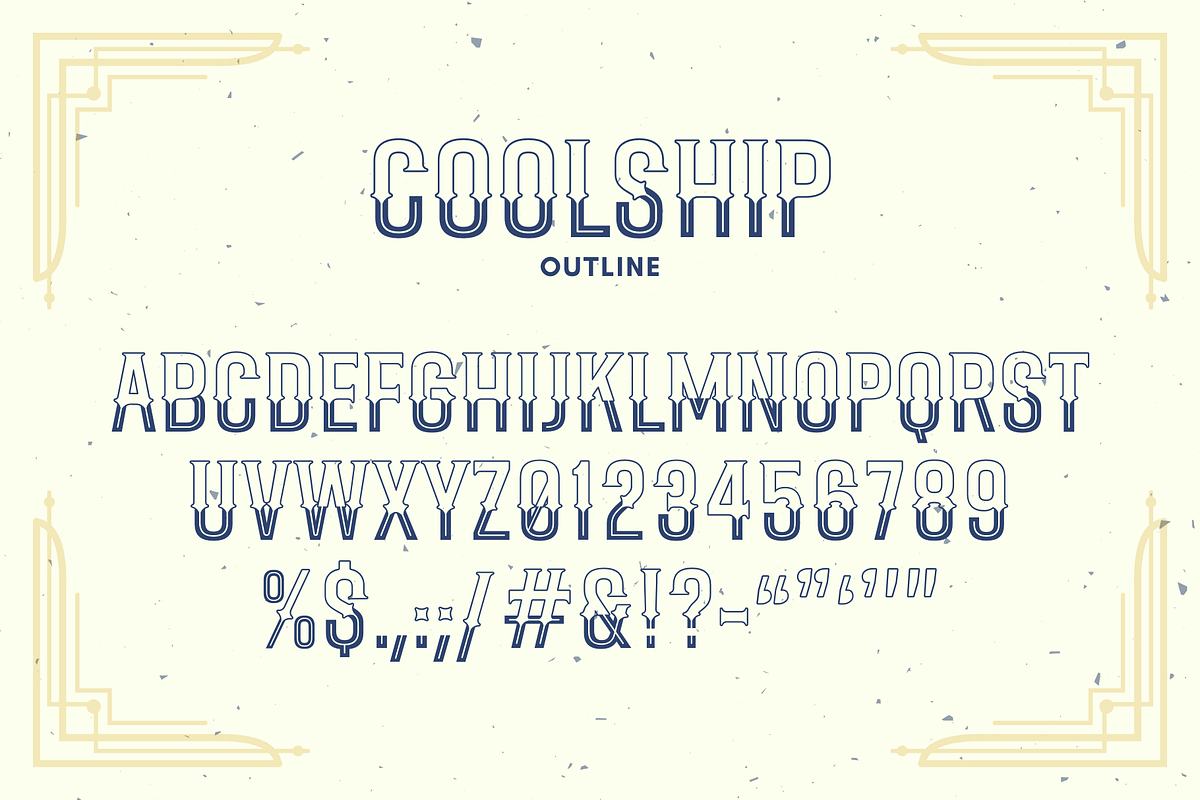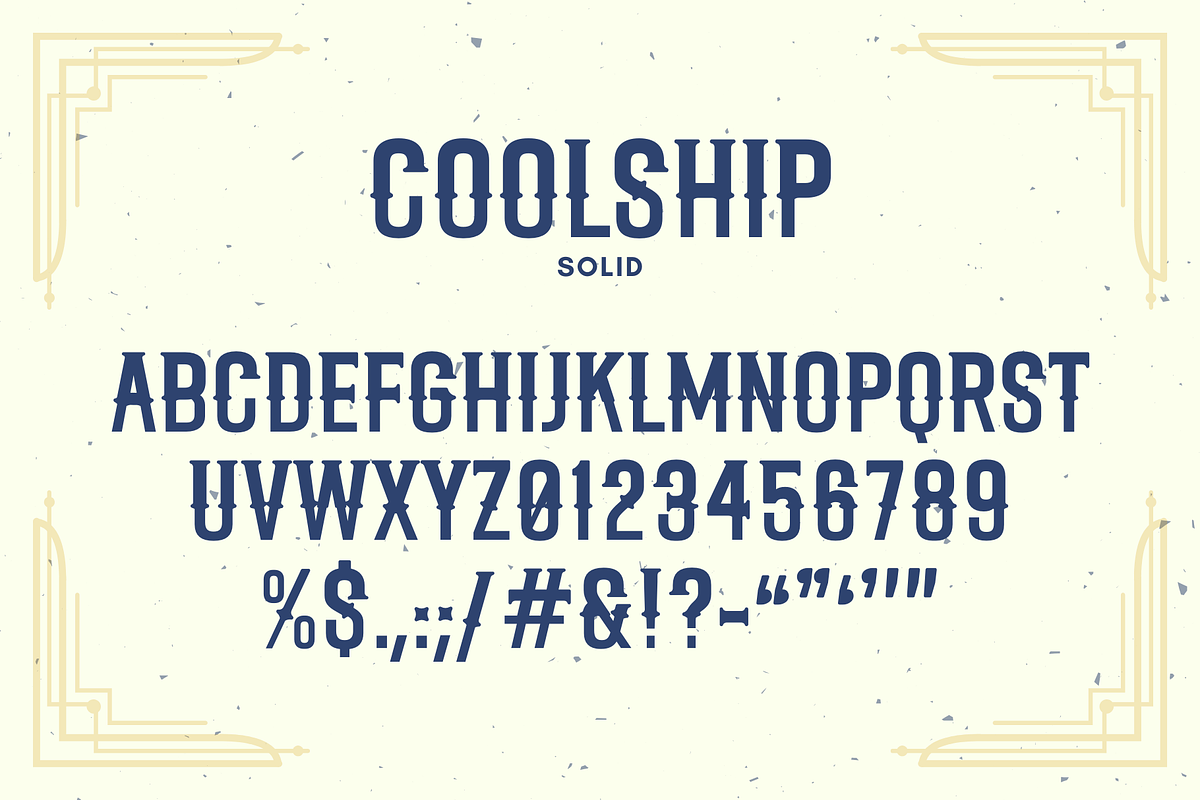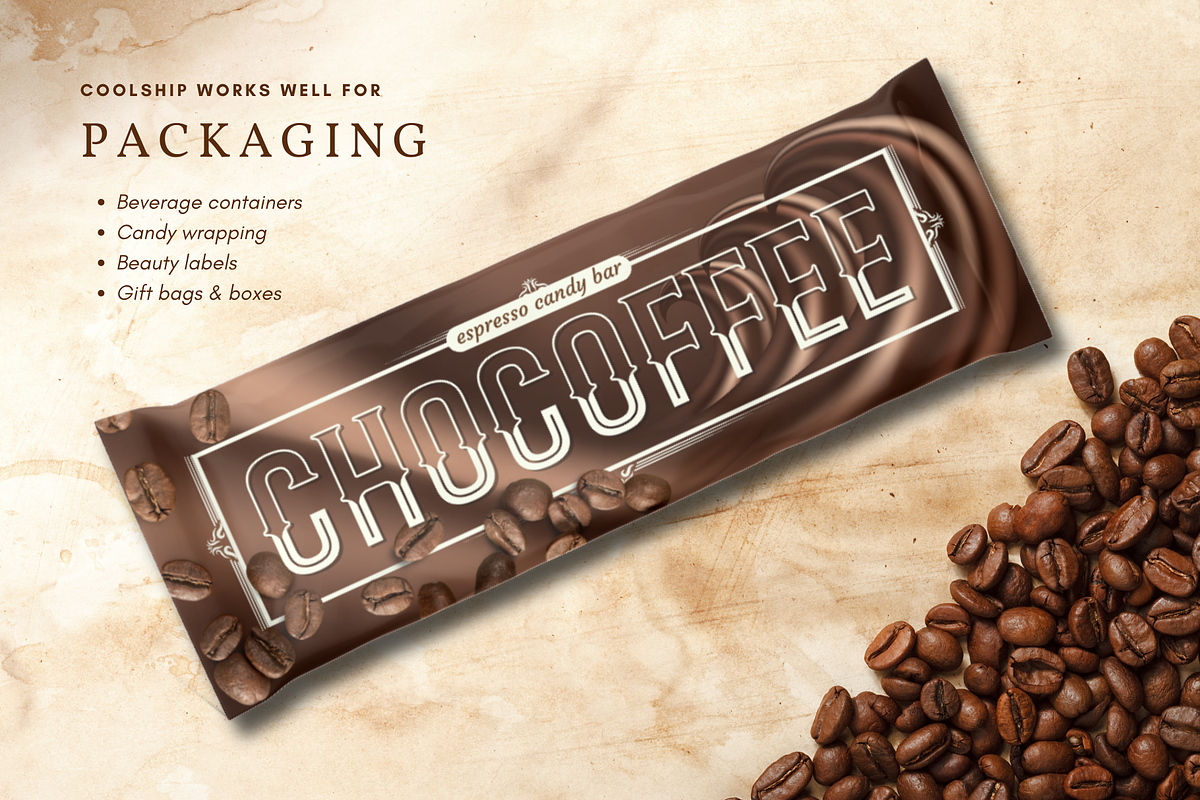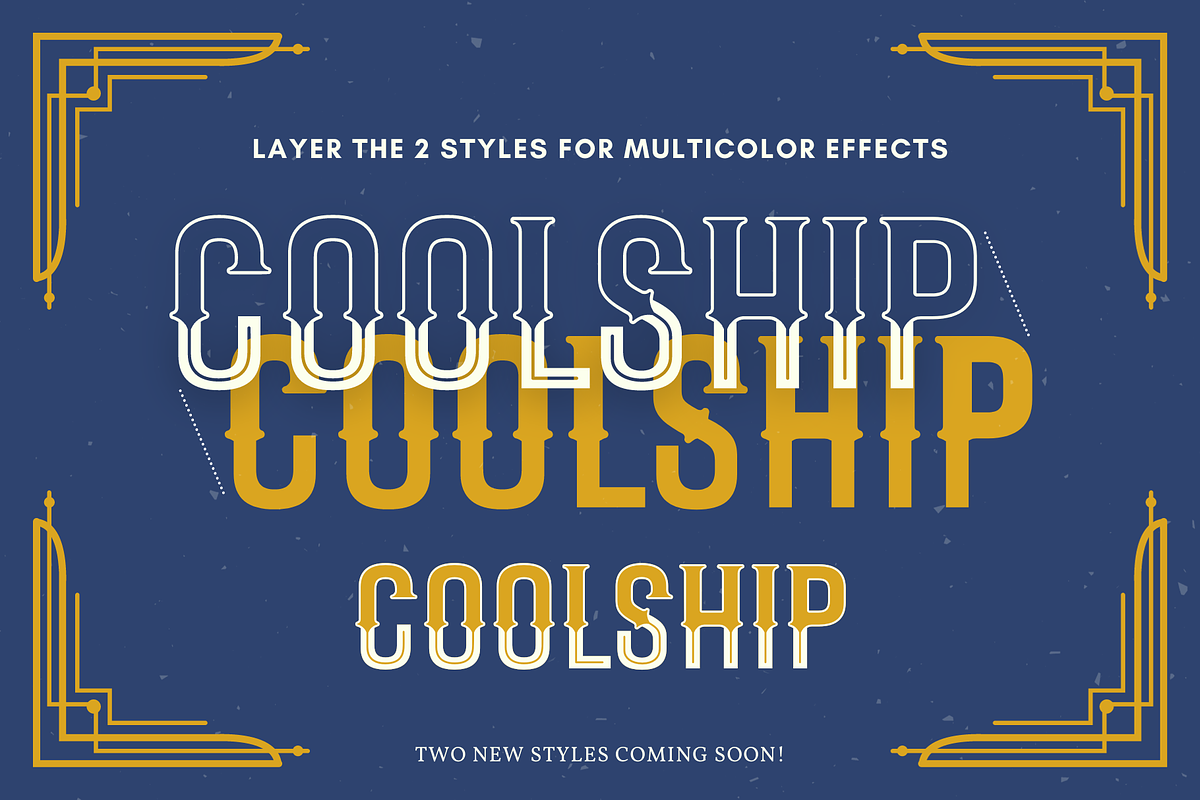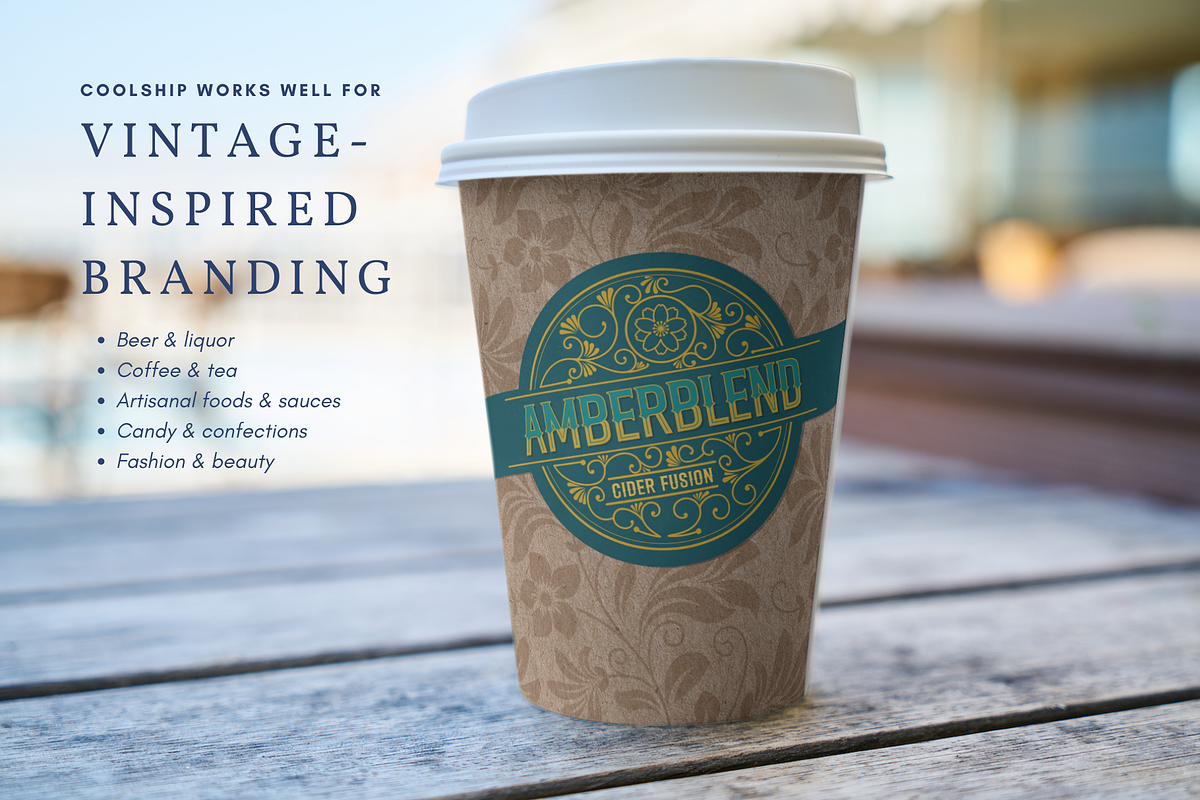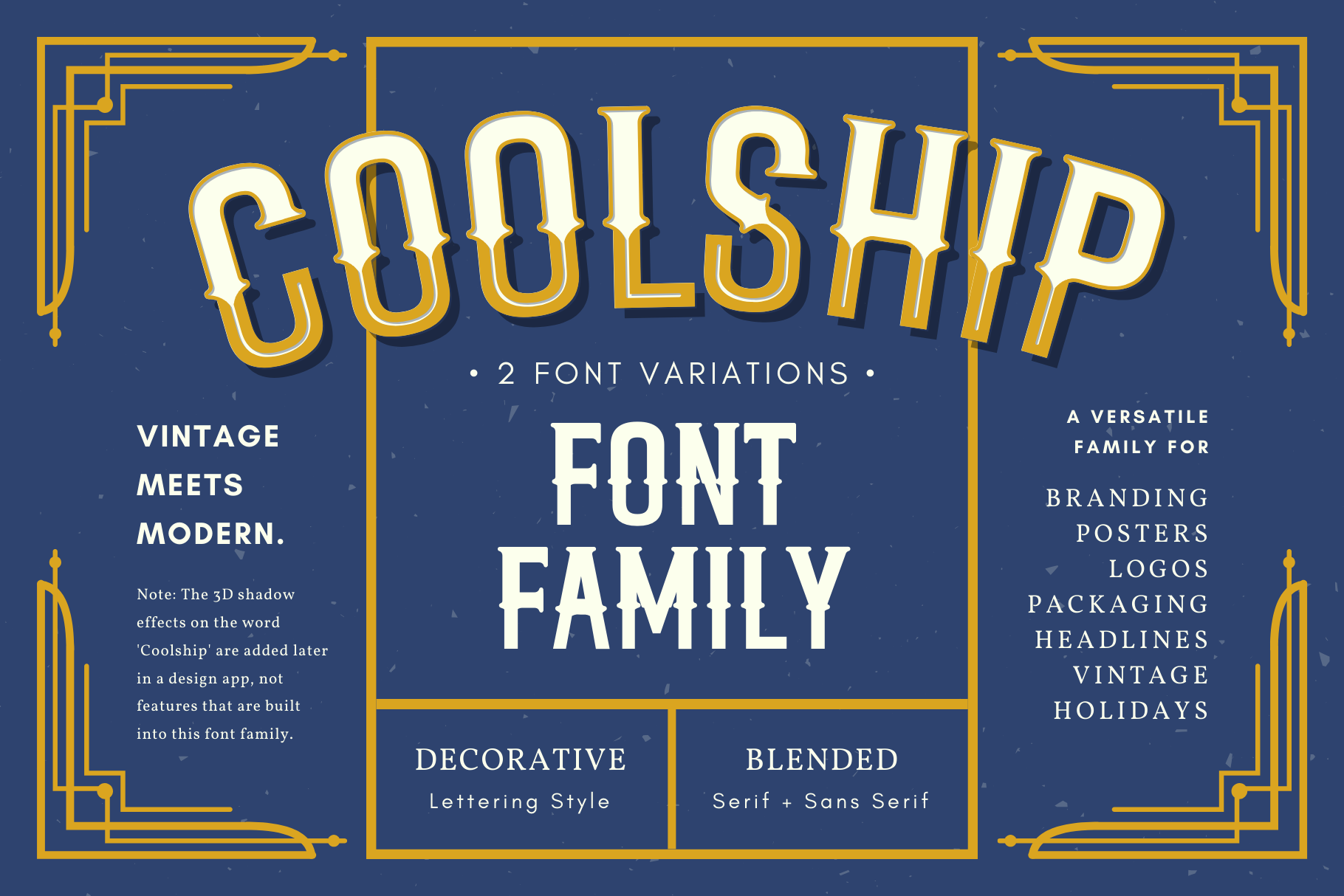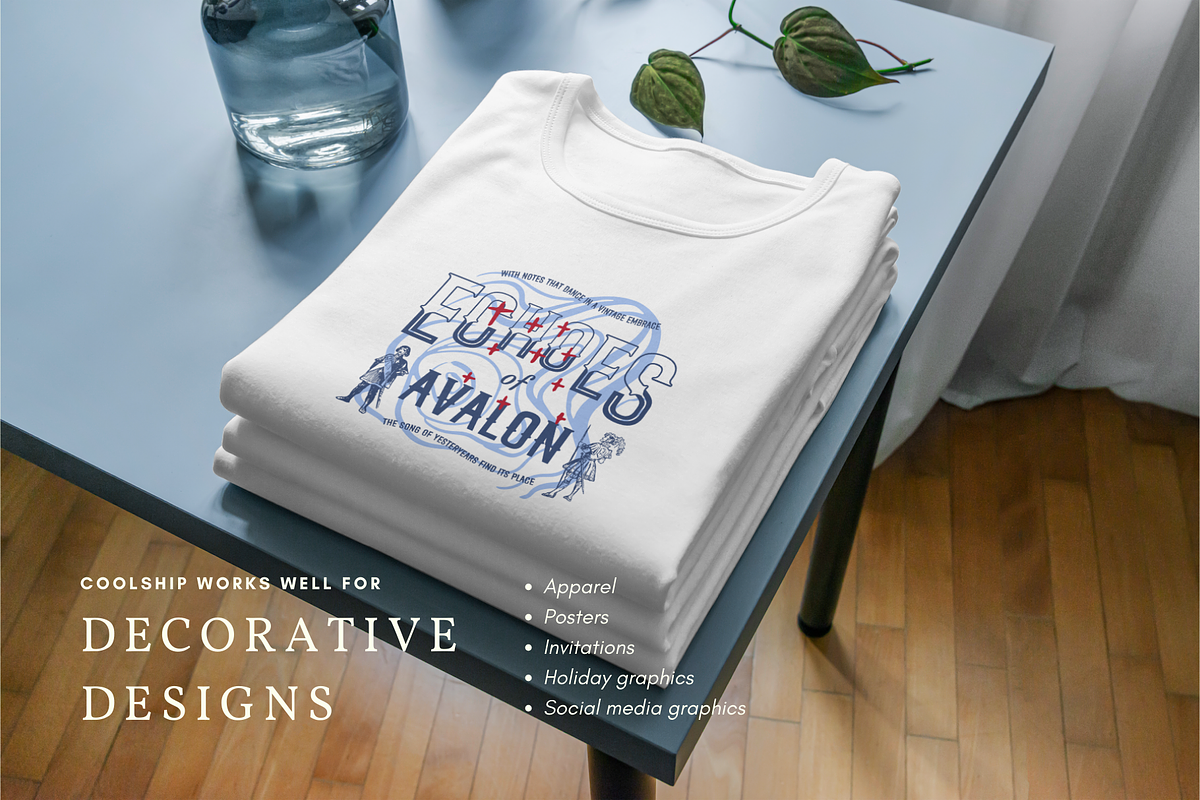
Coolship Font Family
Introducing Coolship, a distinctive decorative display font that seamlessly combines the elegance of traditional decorative lettering with the crisp simplicity of a clean sans serif. From brewery brands and coffee-related aesthetics to holiday graphics, packaging designs, and vintage-inspired posters, Coolship effortlessly elevates your creative projects.
Born from a craft brewery branding project, the font includes both an outline version and a solid version, allowing for layering to create captivating multicolor effects. Coolship offers an uppercase alphabet, numbers, and limited punctuation, providing a versatile toolkit for designers. Coolship is your go-to for captivating large headlines and display applications, adding timeless charm to your creative projects.
- Full upper alphabet
- Limited Punctuation